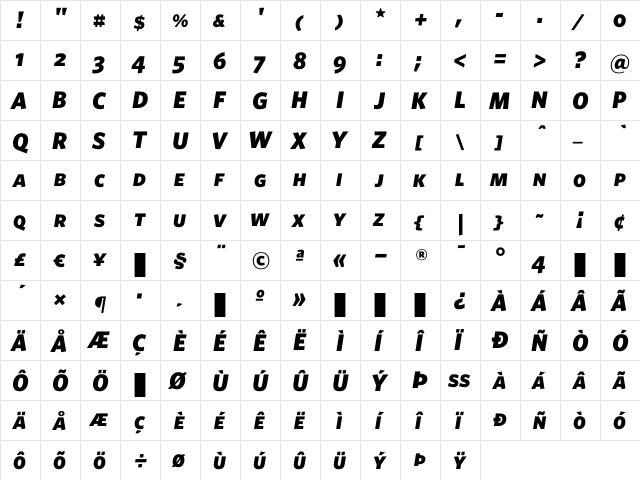
Whitney BlackItalicSC
Design Context for Whitney Typeface
Whitney offers clean, dependable letterforms without strong stylistic allegiance, making it a practical choice for designers who need flexibility. Its italic angle brings a sense of urgency and motion to the letterforms.
Pro Tip: Try Whitney for annotation and caption copy alongside an upright companion — the contrast in angle creates a dynamic but ordered typographic system.